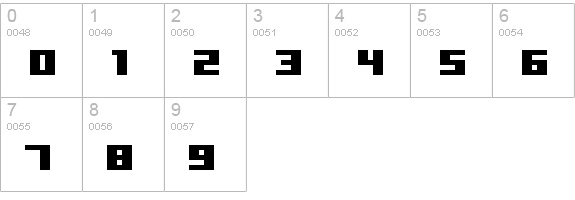
hooge 05_65 Font Details
Hooge 05_65 font is a modern and stylish typeface that exudes sophistication and elegance. With its sleek lines and contemporary design, this font is perfect for a wide range of projects, from branding to editorial design. The clean and minimalist look of Hooge 05_65 makes it versatile and suitable for both digital and print applications. What sets Hooge 05_65 font apart is its seamless blend of professionalism and creativity, making it a top choice for designers looking to make a statement. Whether you are working on a logo, website, or packaging design, this font will elevate your project to the next level. Best of all, Hooge 05_65 font is available for free download at FontsMarket.com. This means you can easily access this high-quality font and use it in your projects without any cost. Don't miss out on the opportunity to enhance your designs with the sleek and modern Hooge 05_65 font. Download it today and see the difference it can make in your work.